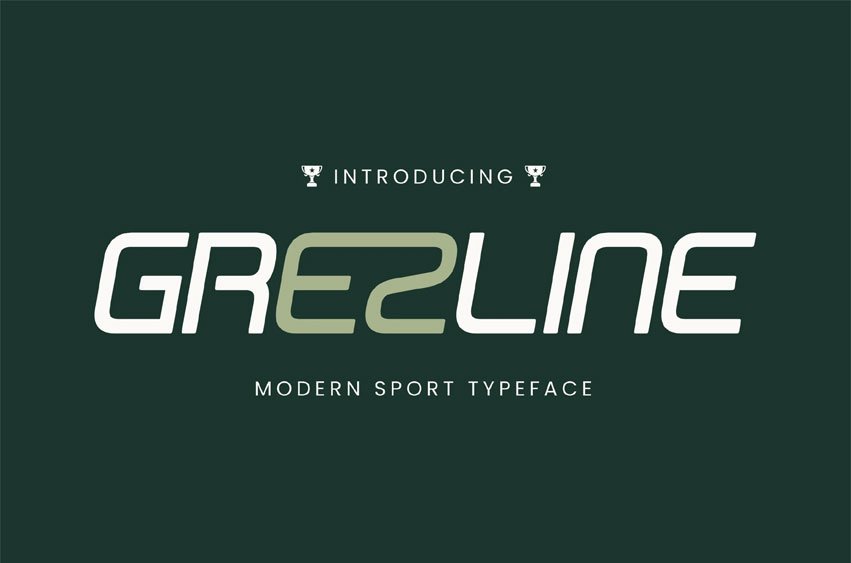
Grezline Font is a modern sport font designed with a sleek and futuristic touch. Its smooth curves and dynamic letterforms create a sense of speed, motion, and precision — making it perfect for sports branding, racing designs, team logos, and energetic titles.
This typeface blends modern aesthetics with athletic strength, giving your design a professional and powerful look.